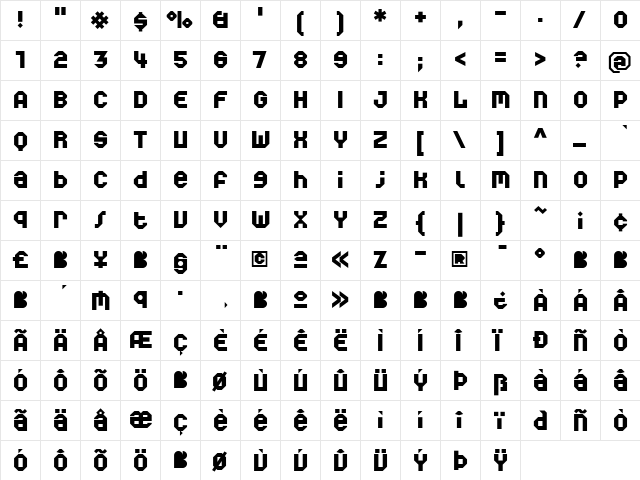
World Medium Font Preview
World Medium
World Medium Font Details
Design Context for World Typeface
World offers clean, dependable letterforms without strong stylistic allegiance, making it a practical choice for designers who need flexibility.
Pro Tip: Pair World with a font of contrasting weight or personality to build a more expressive typographic hierarchy.